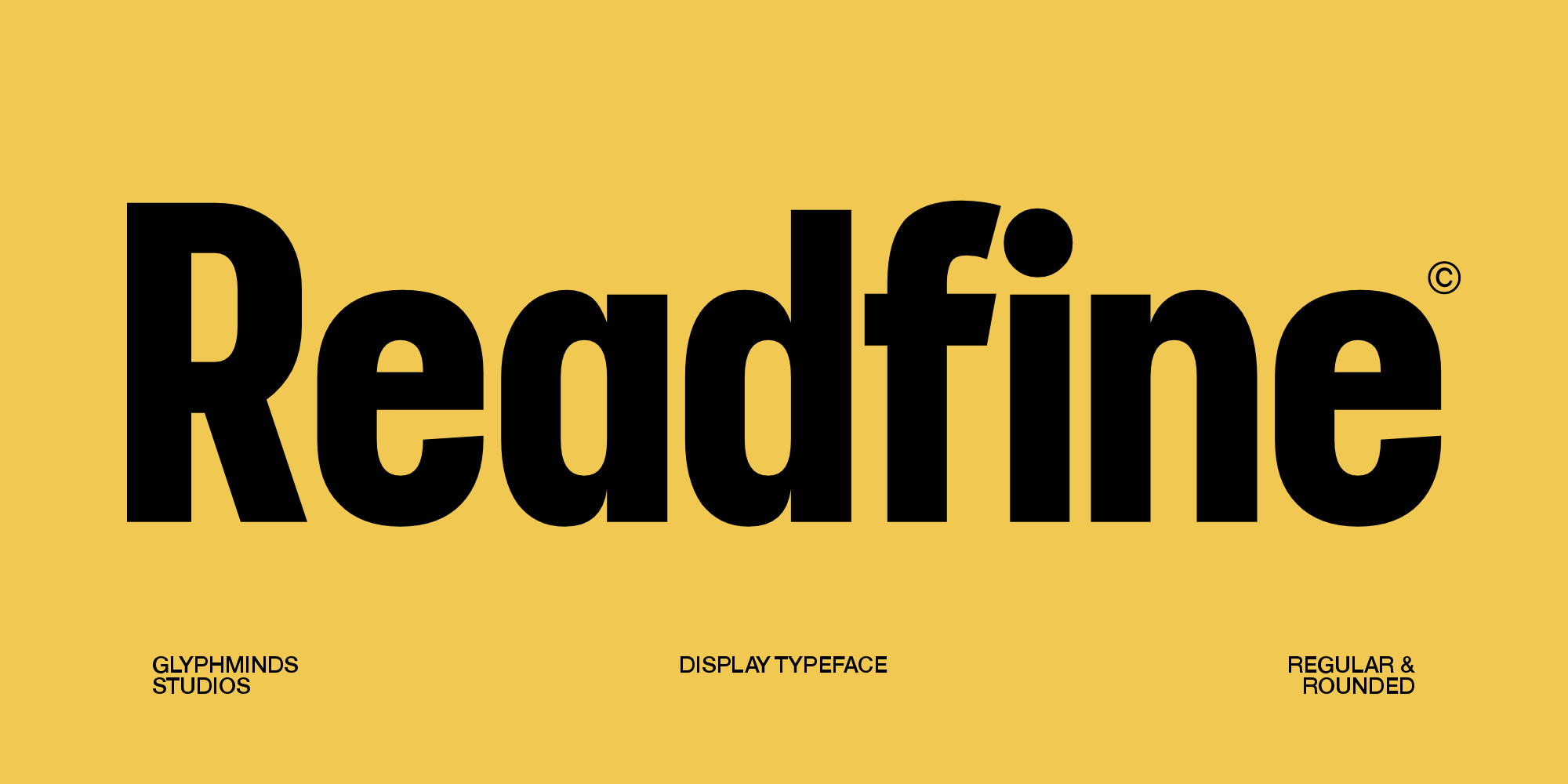
Readfine Font Free Download – Experience perfect readability with this ultra-clean, modern sans-serif designed for digital clarity. Commercial use requires licensing, but download the free version to test its exceptional legibility.
Where Can You Use Readfine Font?
This versatile typeface excels in:
Website body text (optimized for screen readability)
Mobile app interfaces (crystal-clear at small sizes)
Corporate documents (professional annual reports and presentations)
Wayfinding systems (perfect for signage and public information)
Why Is Readfine Font Exciting?
Readfine redefines digital typography with scientific precision, featuring:
Enhanced character spacing for reduced eye strain
Optimized x-height for maximum recognition
Subtle curvature that softens digital harshness
Unicode extended support for multilingual projects
Readfine Font Family
The complete readability system includes:
Readfine Light (clean and airy)
Readfine Regular (perfect balance)
Readfine Medium (slightly emphasized)
Readfine Mono (fixed-width coding version)